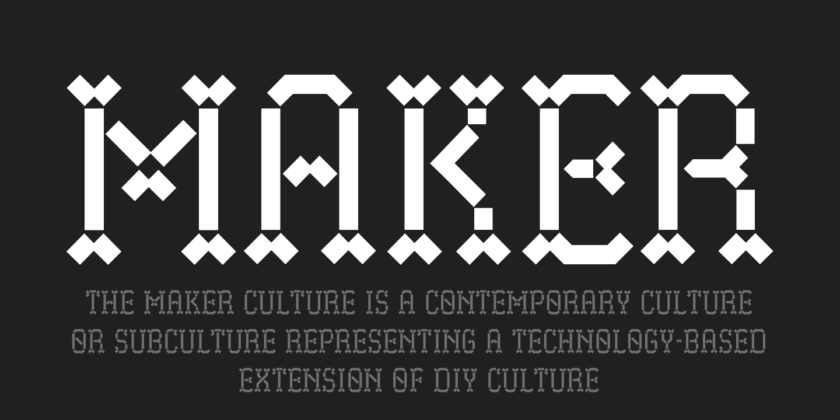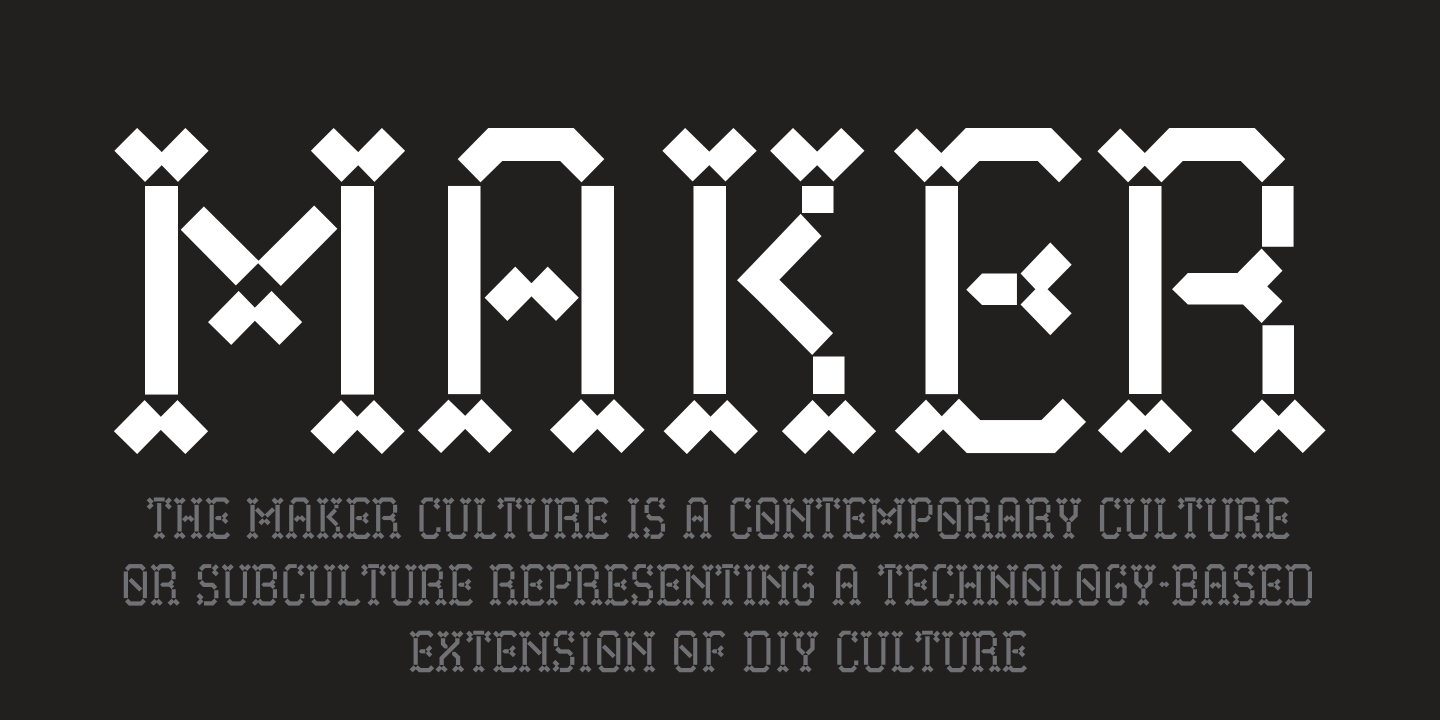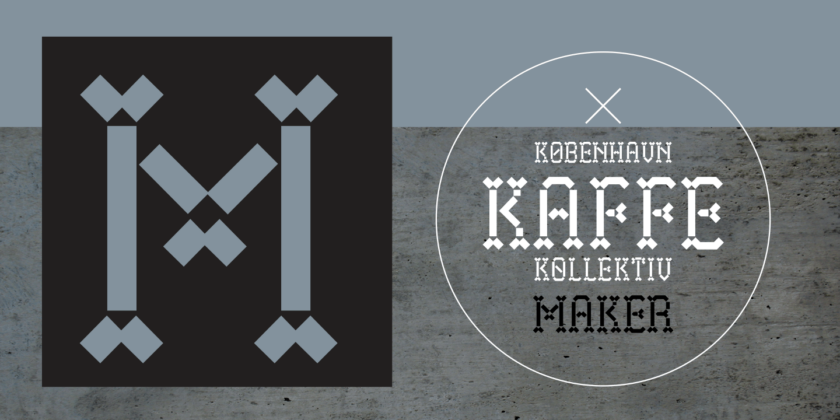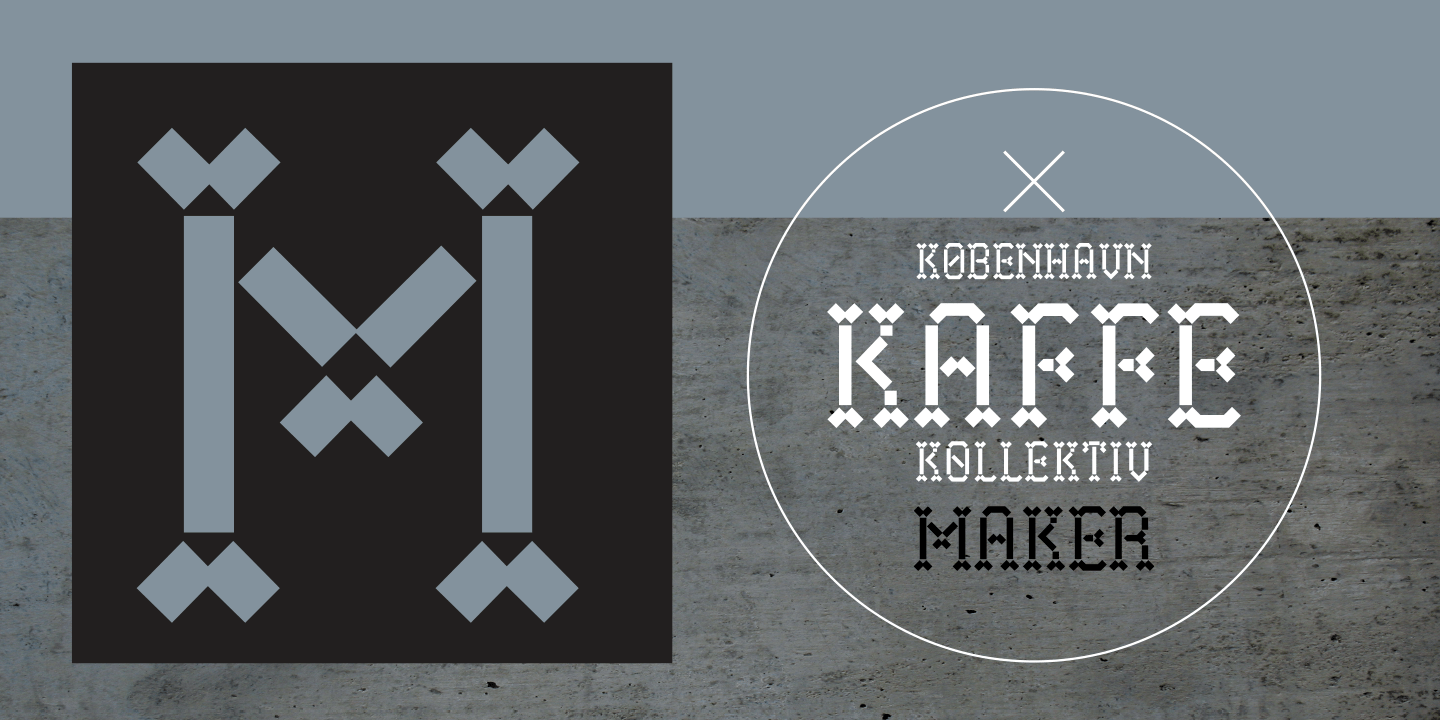
About Maker
Maker, the font, pays homage to the Maker constructivist culture. Especially the sparked community interaction, and exchange of ideas through social meetings in shared spaces. With Maker you have hints of a Gothic minuscule heritage and pixel components…